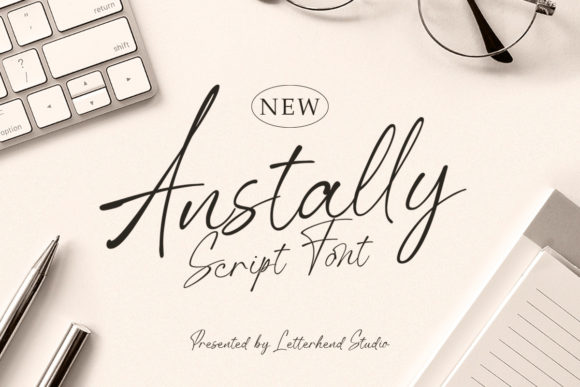
Introducing Anstally Script: A Font of Enchantment for Your Creative Expressions.
Dive into the world of Anstally Script, a font that captivates and inspires. Experience the beauty of handwritten artistry, crafted with the utmost care to bring a touch of elegance and charm to your designs.
With its delicate strokes and graceful curves, Anstally Script exudes a timeless allure. Each letter dances across the page like a whisper of creativity, inviting you to explore the depths of your imagination.
Unleash the Power of Anstally Script:
- Ignite Your Artistic Vision: Elevate your logos, branding, and quotes with the captivating beauty of Anstally Script. Its unique and beautiful touch breathes life into your designs, turning ordinary words into captivating expressions.
- Embrace the Magic of Handwritten Charm: Anstally Script is a font that feels like a warm embrace. Its handwritten style evokes a sense of intimacy and connection, drawing your audience into your creative world.
- Discover Endless Creative Possibilities: From whimsical invitations to heartfelt love letters, Anstally Script's versatility knows no bounds. It seamlessly adapts to your creative vision, adding a touch of sophistication and charm to every project.
- Make a Statement with Tattoos That Speak: Anstally Script is the perfect choice for creating meaningful tattoos that tell your story. Its flowing lines and elegant curves create a lasting impression, capturing the essence of your individuality.
Experience the Allure of Anstally Script Today:
Anstally Script is more than just a font; it's an invitation to embark on a creative journey. Let its beauty inspire you to create designs that resonate with your audience, leaving a lasting imprint on their hearts.